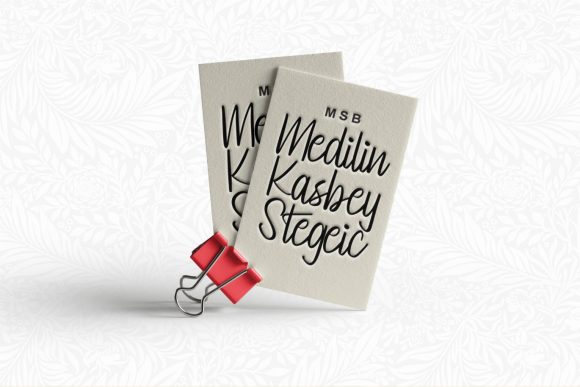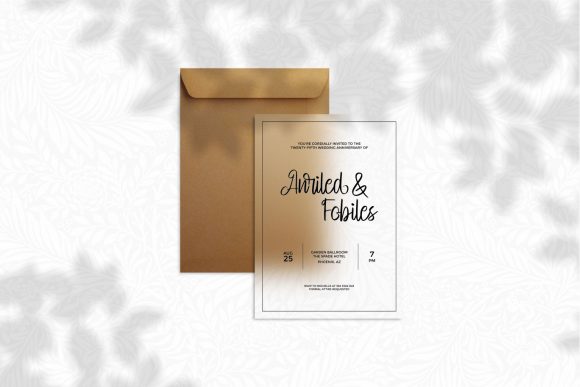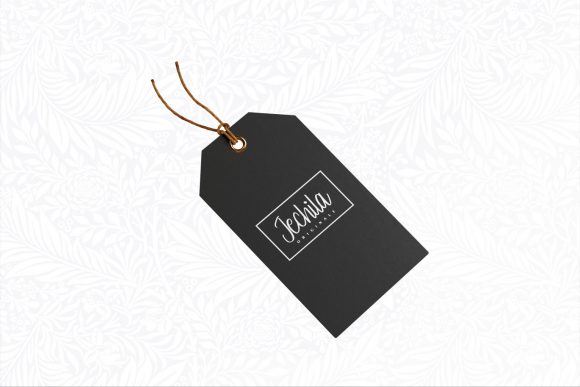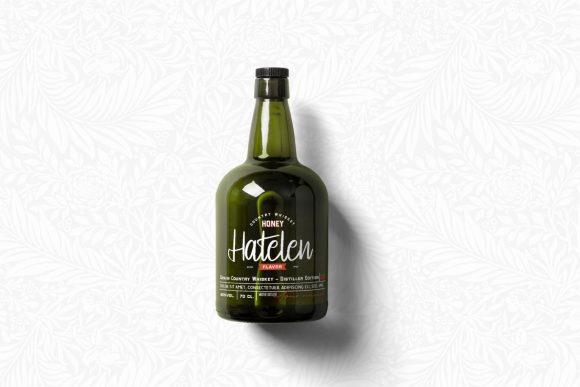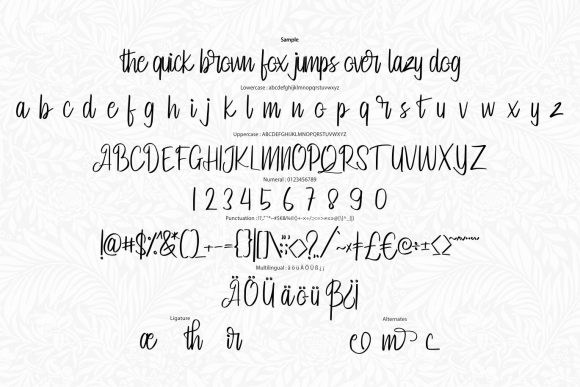
Eolireh Font: Elevate Your Designs with a Simple yet Stunning Handwritten Typeface
In the world of typography, a good font can make all the difference in the success of a design project. For designers and crafters looking for a beautiful and professional typeface to elevate their work, Eolireh Font is an excellent choice. This simple and neat handwritten font is perfect for a wide range of applications, from posters and headlines to block letters, subheadings, logo designs, branding, and more.
The Characteristics of Eolireh Font
Eolireh Font is a handwritten typeface that exudes simplicity and elegance. Its clean lines and neat appearance make it a versatile font that can be used in various design contexts. The font’s simplicity ensures that it remains legible even at smaller sizes, making it perfect for body text or captions. At the same time, its unique and stylish appearance makes it stand out from more traditional fonts, adding a touch of personality to any design.
What Makes Eolireh Font Stand Out
So, what sets Eolireh Font apart from other typefaces? Here are a few key features that make it an excellent choice for designers and crafters:
• Simple and Neat Appearance: Eolireh Font boasts a clean and uncluttered design that makes it easy to read and visually appealing.
• Handwritten Style: The font’s handwritten style adds a touch of warmth and personality to any design, making it perfect for projects that require a more personal touch.
• Versatility: Eolireh Font can be used in a wide range of applications, from posters and headlines to logo designs and branding.
• Professional Look: Despite its handwritten style, Eolireh Font has a professional and polished appearance that makes it suitable for business and commercial projects.
Use Cases for Eolireh Font
Eolireh Font is a versatile typeface that can be used in various design contexts. Here are some use cases where Eolireh Font excels:
• Posters and Flyers: Eolireh Font is perfect for creating eye-catching posters and flyers that require a bold and attention-grabbing typeface.
• Headlines and Subheadings: The font’s clean lines and neat appearance make it an excellent choice for headlines and subheadings in articles, blog posts, and other written content.
• Logo Designs and Branding: Eolireh Font can be used to create unique and memorable logos that reflect a brand’s personality and values.
• Block Letters and Quotes: The font’s handwritten style makes it perfect for creating block letters and quotes that add a touch of personality to any design.
Tips for Using Eolireh Font
To get the most out of Eolireh Font, here are some tips to keep in mind:
• Experiment with Font Sizes: Eolireh Font remains legible even at smaller sizes, so don’t be afraid to experiment with different font sizes to create visual interest.
• Pair with Other Fonts: Eolireh Font can be paired with other fonts to create a unique and visually appealing typography scheme.
• Use in Combination with Images: The font’s simple and neat appearance makes it perfect for use in combination with images and graphics.
Eolireh Font is a beautiful and professional handwritten typeface that is perfect for designers and crafters looking to elevate their designs. Its simple and neat appearance, versatility, and professional look make it an excellent choice for a wide range of applications. Whether you’re creating posters, headlines, block letters, subheadings, logo designs, or branding materials, Eolireh Font is sure to make your designs stand out.